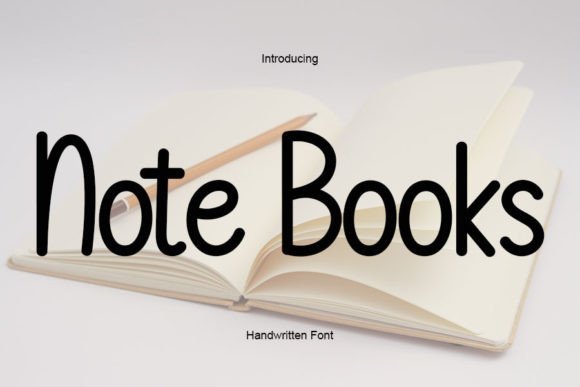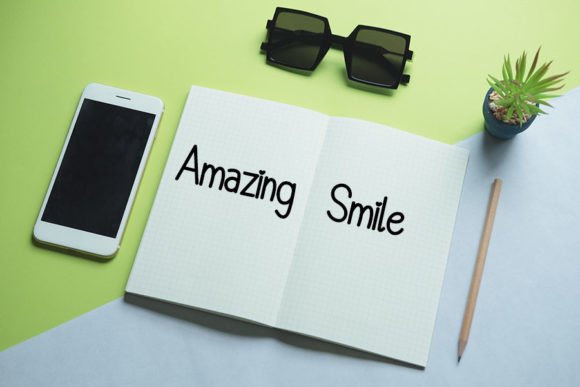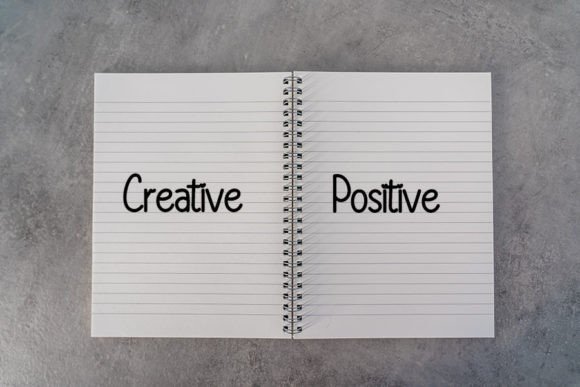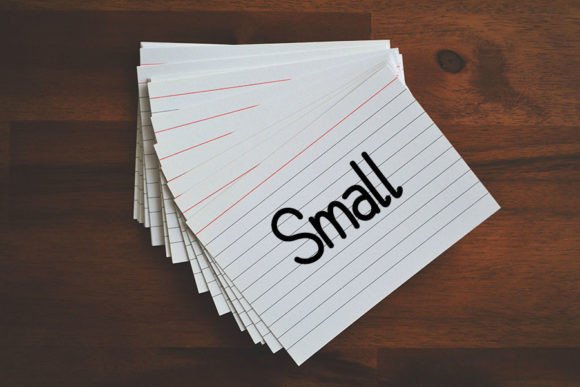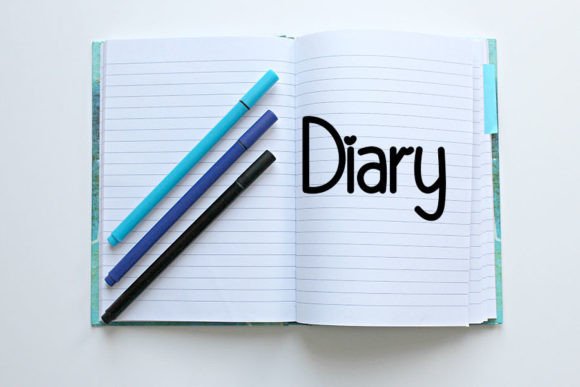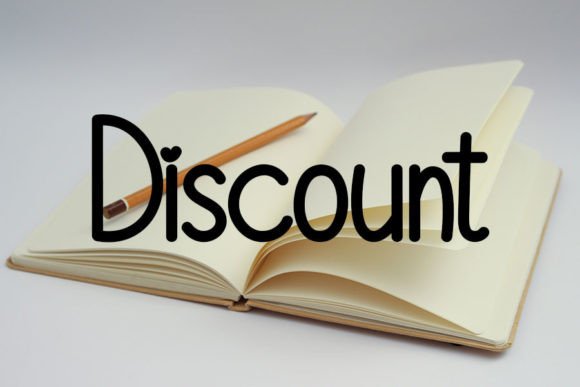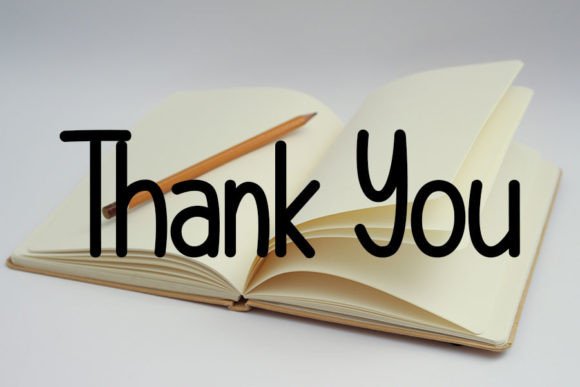
Note Books Font
About Note Books Font
Note Books is a neat and elegant handwritten font that brings a touch of sophistication to any project. Its clean strokes and graceful curves make it an ideal choice for a variety of design needs. From professional branding to personal stationery, Note Books helps you create designs that feel polished and timeless.
Elegant and Timeless Style
One of the most striking qualities of Note Books is its refined, classic look. Each letter is carefully crafted with smooth, flowing lines that feel both modern and timeless. The gentle curves and balanced shapes create a calm and welcoming aesthetic.
This understated elegance makes Note Books perfect for projects that call for a sophisticated yet approachable feel.
Perfect for Many Applications
Note Books is designed to be versatile. It adapts effortlessly to different uses and styles. Here are some ideas for where it shines:
• Wedding Invitations: Create romantic, elegant invitations that stand out.
• Greeting Cards: Add a personal, heartfelt touch to messages for any occasion.
• Business Cards: Present a professional, polished image to clients and contacts.
• Logos and Branding: Build a recognizable look that feels friendly yet refined.
• Social Media Graphics: Make your posts look cohesive and stylish.
• Product Packaging: Elevate your labels with a handwritten, high-quality feel.
• Quotes and Posters: Highlight inspiring words with graceful typography.
No matter where you use it, Note Books leaves a lasting impression.
Easy Access to Special Features
Tips for Working With Note Books
Here are a few simple tips to help you get the most out of Note Books:
• Pair It With Simpler Fonts: Use a clean sans serif as a secondary font to balance the handwritten style.
• Adjust Letter Spacing: Tweak spacing to create a tighter or more relaxed feel, depending on your project.
• Use Large Sizes for Impact: Make headlines stand out with bold, oversized text.
• Add Alternates and Swashes: Use decorative elements to highlight important words.
With these tips, you can create elegant and professional designs every time.
Create Designs That Feel Personal and Authentic
Note Books is more than just a font. It’s a tool for telling your story in a way that feels warm, stylish, and memorable. Whether you are designing for your business, a client, or your own personal project, this font adds a beautiful handwritten touch that makes your work stand out.
Explore all the ways Note Books can transform your ideas into timeless creations. Let its neat, elegant style inspire your next project.